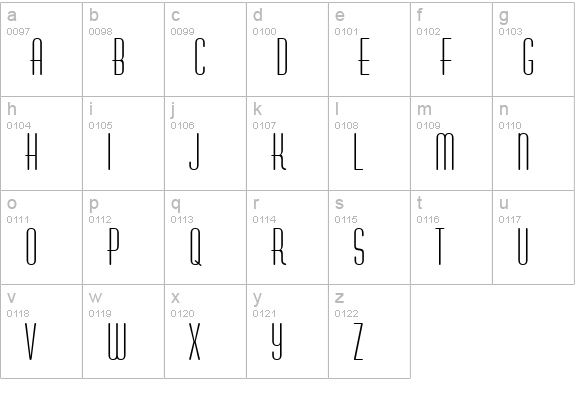
Aldous Vertical Font Details
Aldous Vertical font is a modern and elegant typeface that exudes sophistication and style. With its sleek vertical letterforms and clean lines, this font is perfect for adding a touch of refinement to any design project. Whether you're working on branding, editorial design, or any other creative endeavor, Aldous Vertical will elevate your work to the next level. What sets Aldous Vertical font apart is its versatility - it can be used for both headings and body text, making it a practical choice for a wide range of design applications. The timeless aesthetic of this font ensures that it will remain a classic choice for years to come. Best of all, Aldous Vertical font is available for free download at FontsMarket.com. So why wait? Add this stunning typeface to your font library today and start creating beautiful designs with ease.